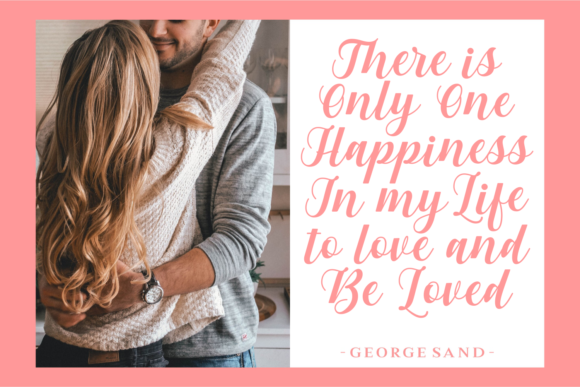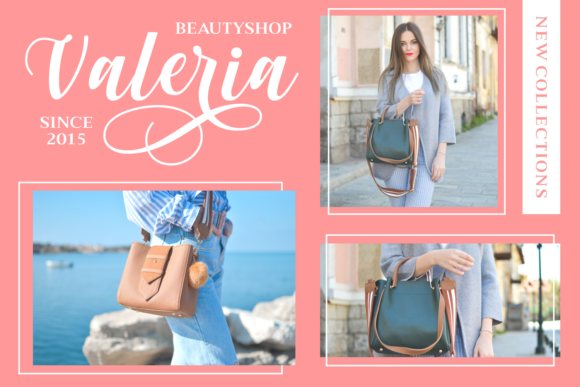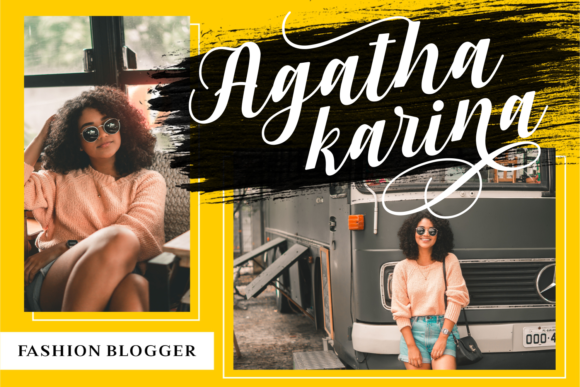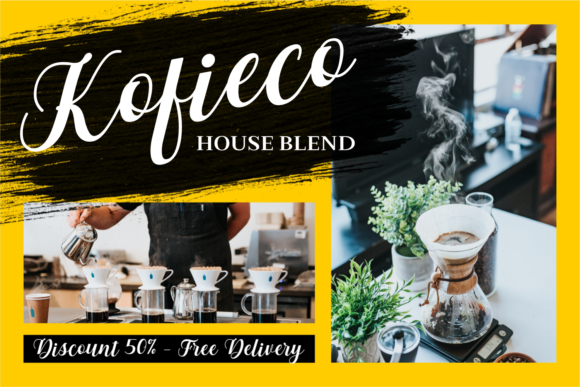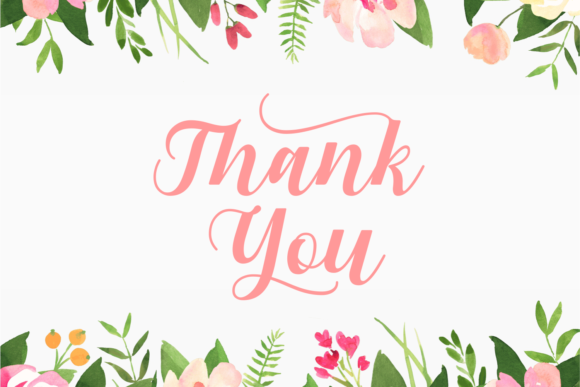
Introducing Gebrina Font: The Perfect Blend of Fun and Femininity
Are you a designer or crafter looking for a typeface that can add a touch of elegance and playfulness to your designs? Look no further than Gebrina Font! This beautiful font is designed to bring a sense of fun and femininity to your projects, making it perfect for a wide range of applications.
A Fun and Feminine Typeface
Beautiful Stylistic Alternates
One of the standout features of Gebrina Font is its beautiful stylistic alternates. These alternates allow you to add a touch of elegance and sophistication to your designs, giving them a classy and refined feel. With Gebrina Font, you can easily swap out letters and words to create a unique and eye-catching design that’s sure to turn heads.
Key Features of Gebrina Font
- Fun and feminine design: Gebrina Font is designed to add a touch of playfulness and sophistication to your designs.
- Beautiful stylistic alternates: With Gebrina Font, you can easily swap out letters and words to create a unique and eye-catching design.
- Classy and refined feel: Gebrina Font’s elegant design makes it perfect for projects that require a touch of sophistication.
- Versatile: Gebrina Font can be used in a wide range of contexts, from logos and branding to social media graphics and invitations.
Tips and Tricks for Working with Gebrina Font
- Experiment with different sizes and colors: Gebrina Font looks great in a variety of sizes and colors, so don’t be afraid to experiment and find the perfect combination for your design.
- Pair it with other fonts: Gebrina Font pairs well with a variety of other fonts, so try combining it with other typefaces to create a unique and interesting design.
- Use it for headlines and titles: Gebrina Font is perfect for headlines and titles, where its elegant design can really shine.
In conclusion, Gebrina Font is a beautiful and versatile typeface that’s perfect for designers and crafters. Its fun and feminine design, combined with its beautiful stylistic alternates, make it a great choice for a wide range of projects. Whether you’re designing a logo, creating a social media graphic, or crafting a stylish invitation, Gebrina Font is the perfect choice. So why wait? Download Gebrina Font today and start creating stunning designs that are sure to turn heads!